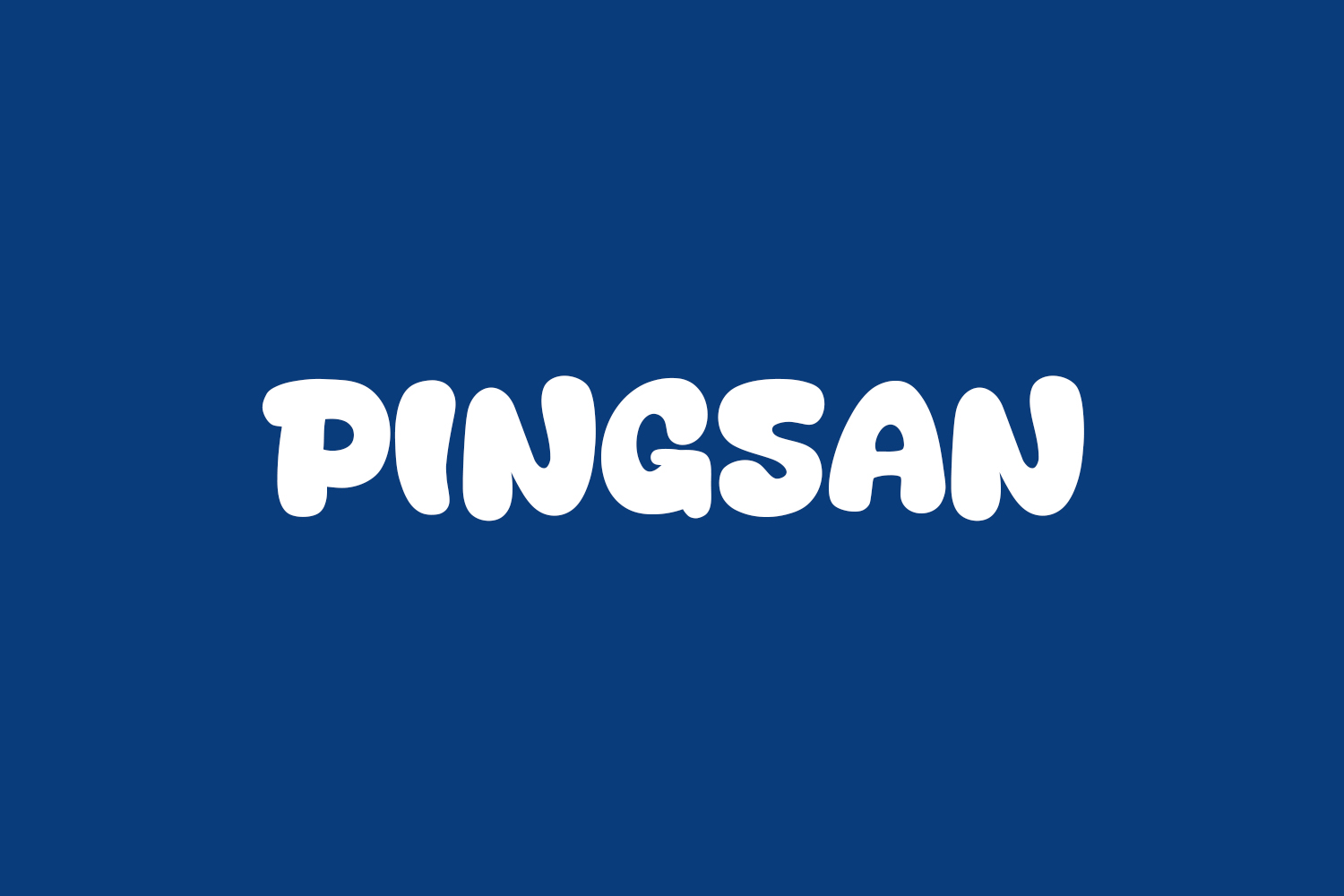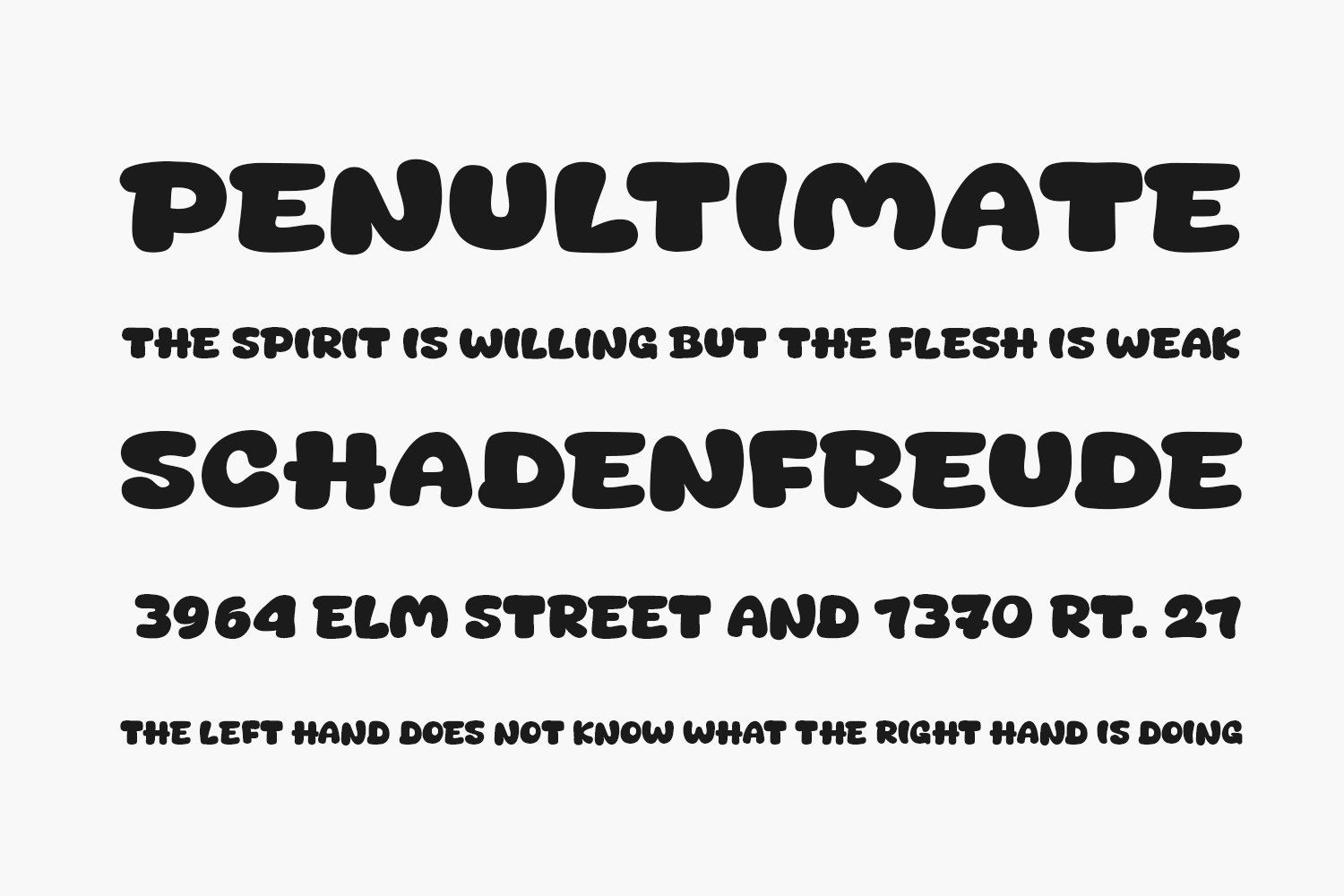
Pingsan Free Font embodies contemporary elegance, an ideal choice for posters, logos, magazines, book covers, banners, and beyond! Elevate your designs with this remarkable font. Its versatility seamlessly integrates into a vast array of projects, enhancing your creative vision and ensuring your work captivates attention. Experience the transformative power of Pingsan today. Download the font for free if you need it for personal or commercial use.